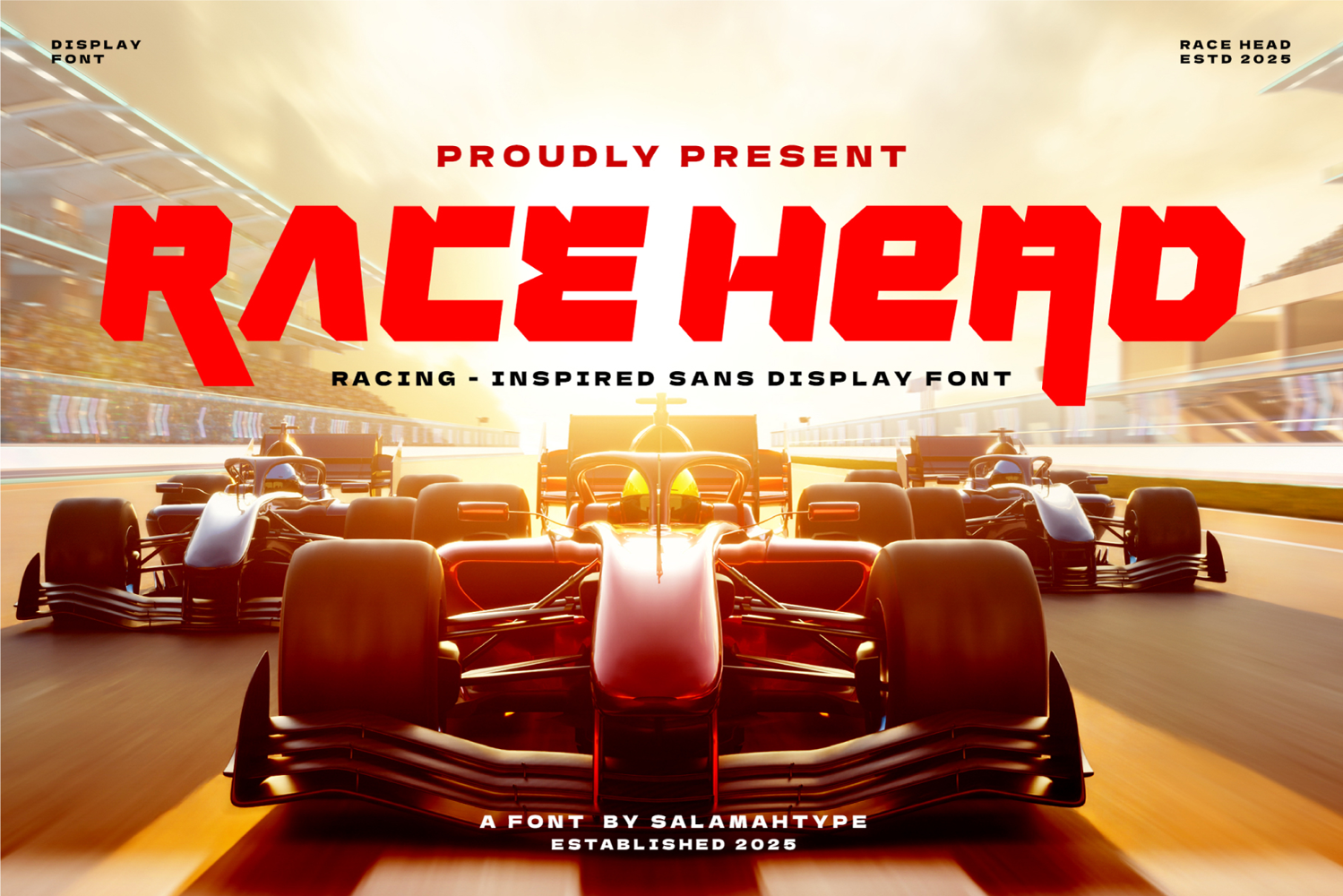
Race Head - Racing Sports Font
We’ve updated Race Head by adding a brand-new Oblique version to give you more stylistic flexibility in your design projects.
Race Head is a powerful sports race font with a bold and dynamic style, designed to bring energy and speed to your designs. With its strong letterforms and striking alternates, this font ensures your logos, headlines, and branding stand out with confidence.
Perfect for sports branding, racing events, gaming titles, posters, and team logos, Race Head includes ligatures and alternates, giving you creative freedom to customize your typography. Its simplicity makes it easy to use, while its bold presence leaves a lasting impression.
Race Head now includes:
• Uppercase and lowercase (Allcaps)
• Symbols and punctuation
• Alternates
• Oblique version (New)
• Multilingual support